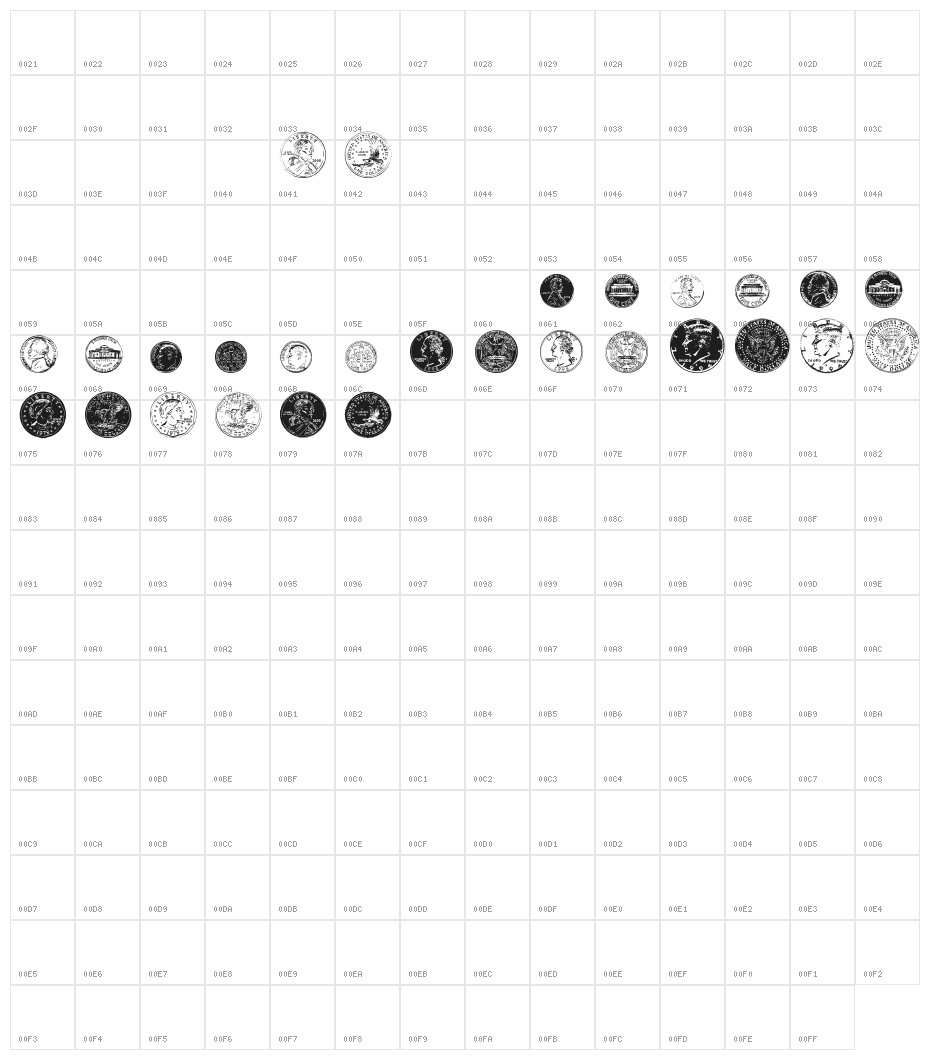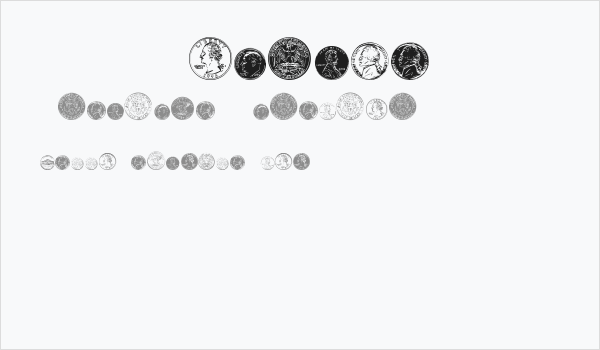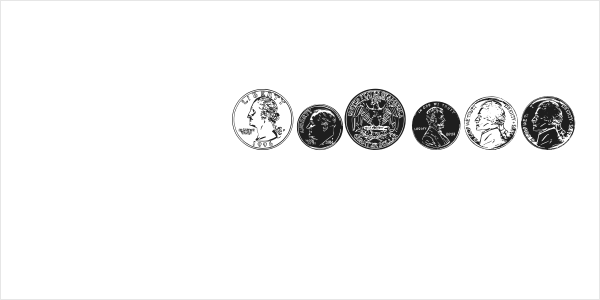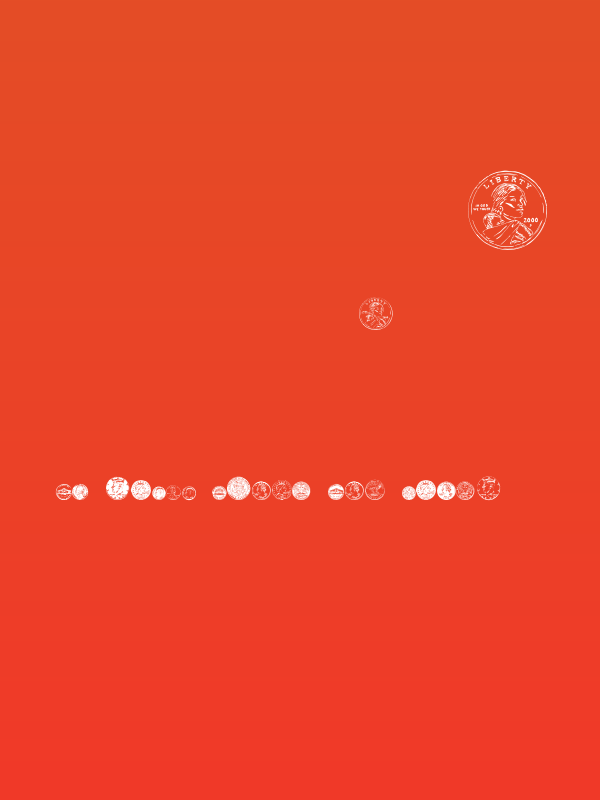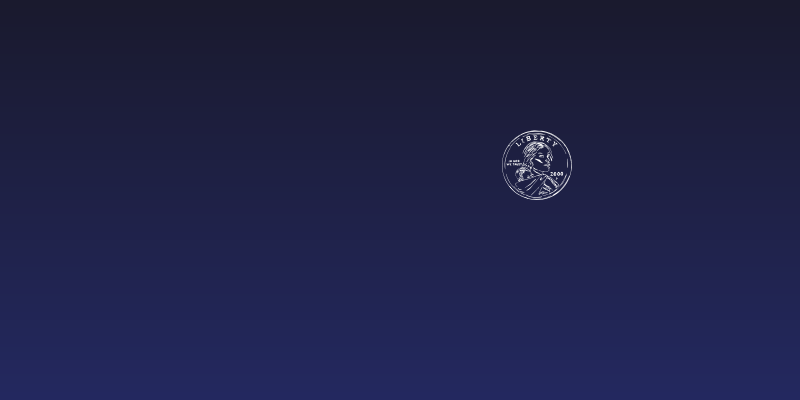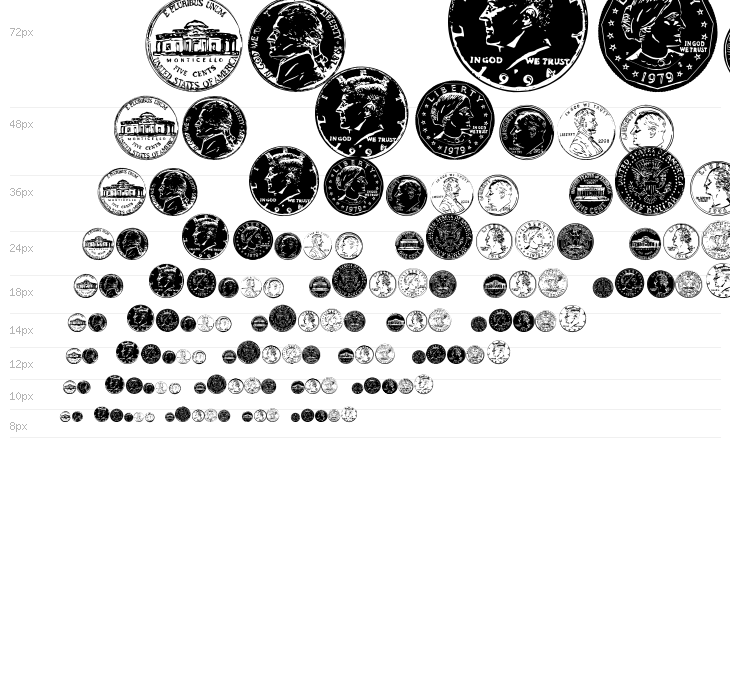
DJ Coinage Font
DJ Coinage Description
A decorative display font where each character is represented by a detailed black-and-white illustration of a coin, featuring various heads, tails, and coin engravings. The glyphs are circular and highly illustrative, with each letter or symbol depicted as a unique coin face or reverse.
Overall StyleDecorative, Thematic, Playful
Use CaseLogos, Headlines, Posters, Themed Graphics
Proposed ProjectsEducational materials, themed party invitations, history or finance-related branding, playful posters, novelty headlines.